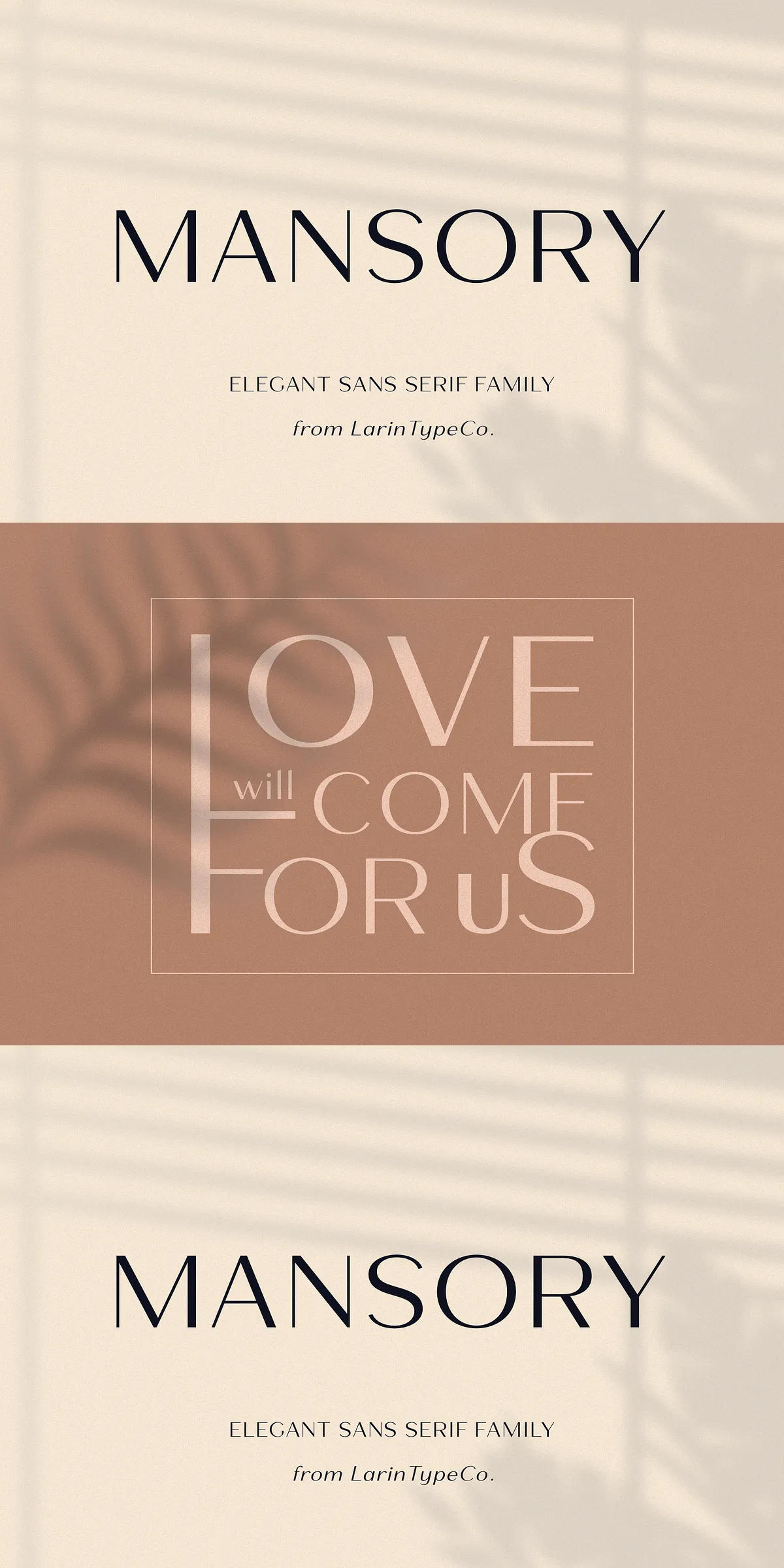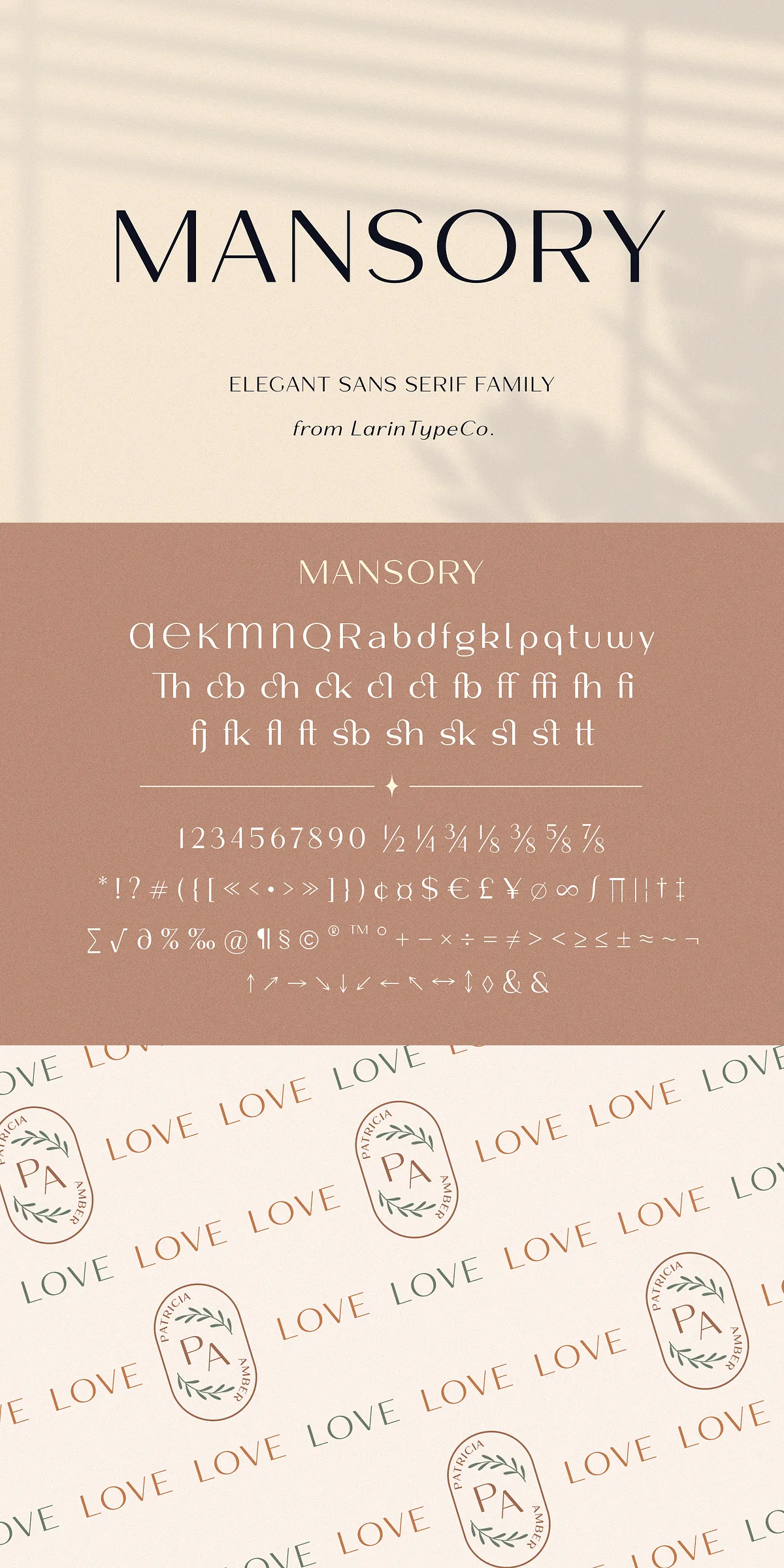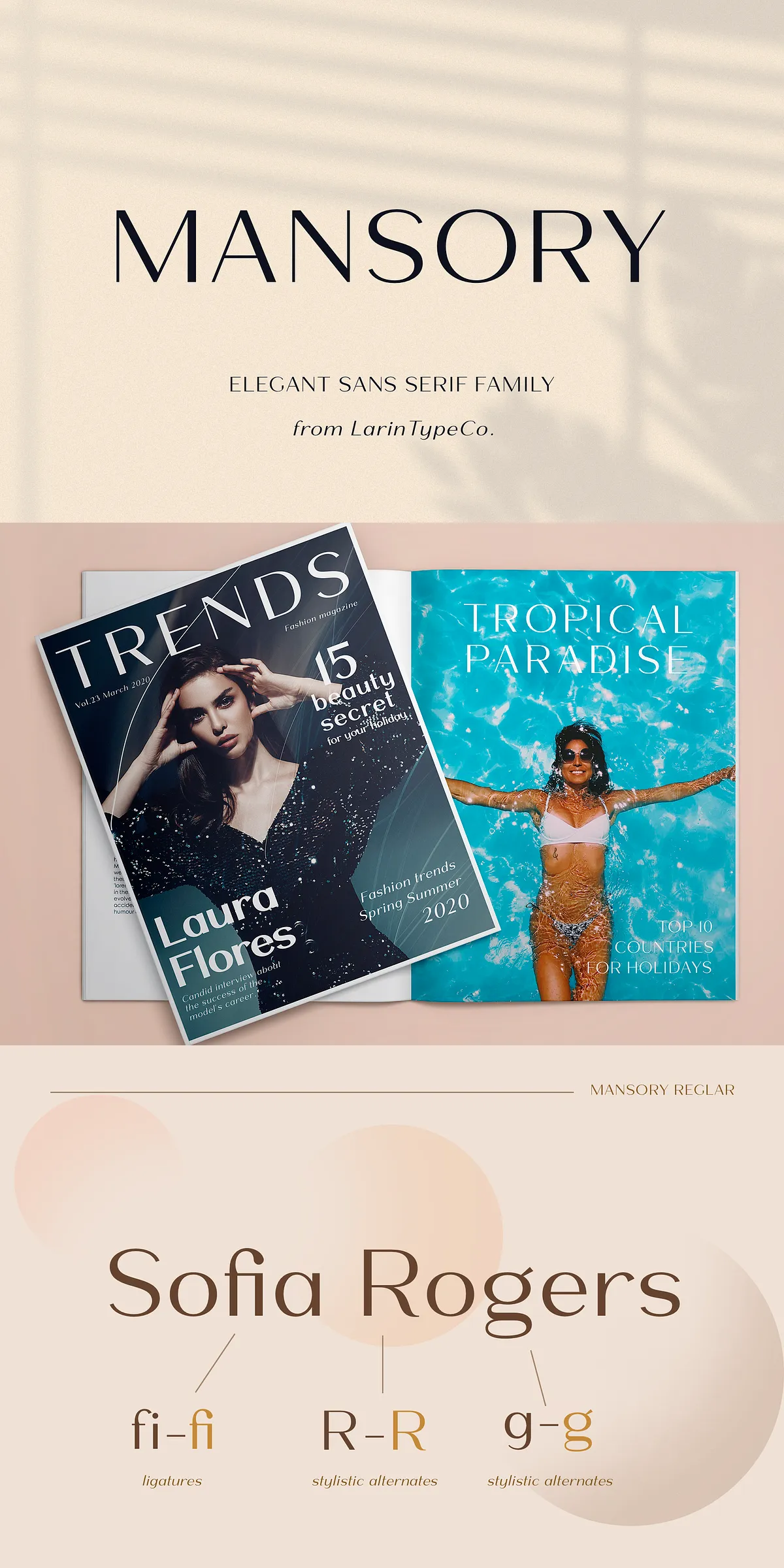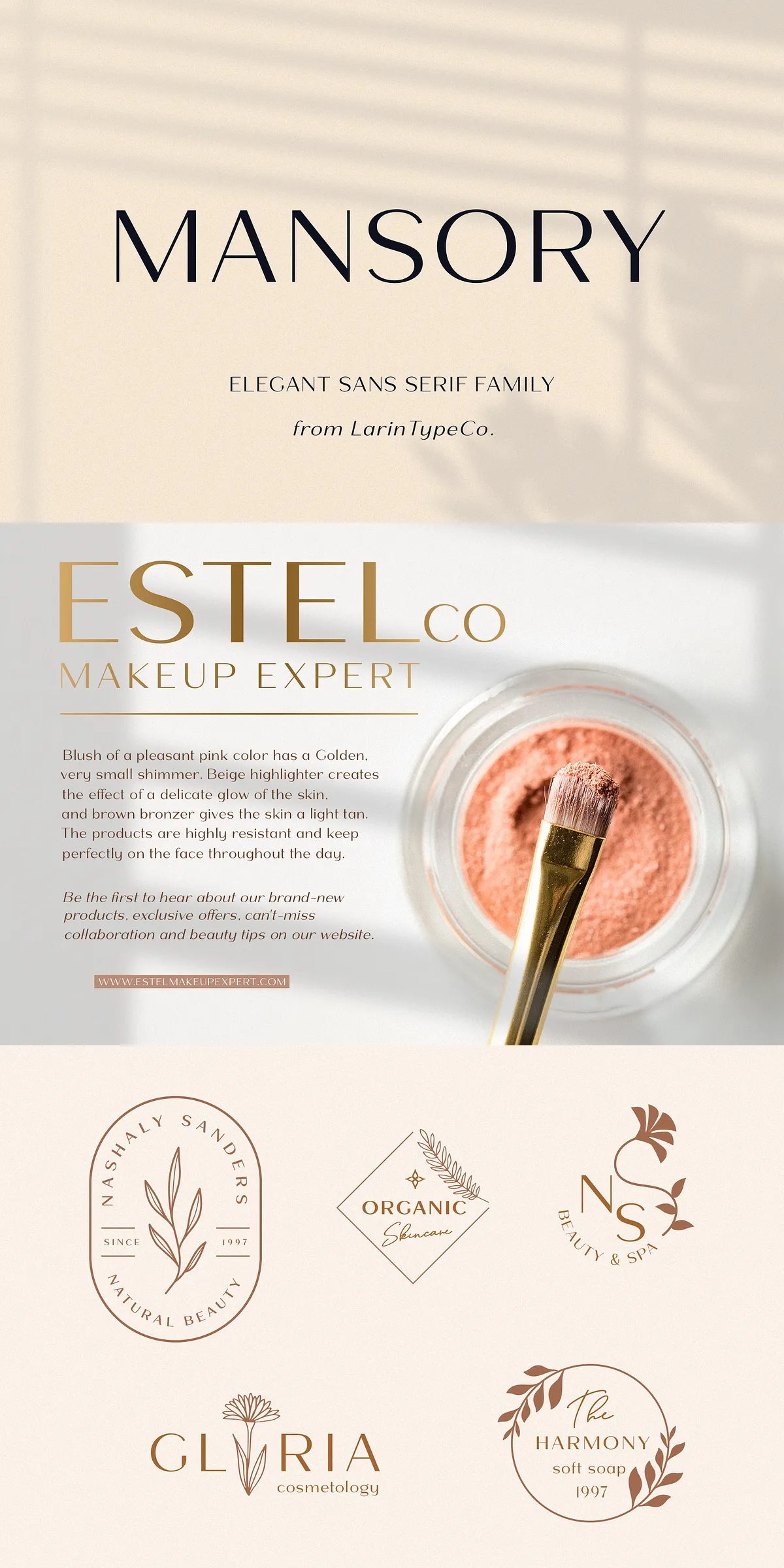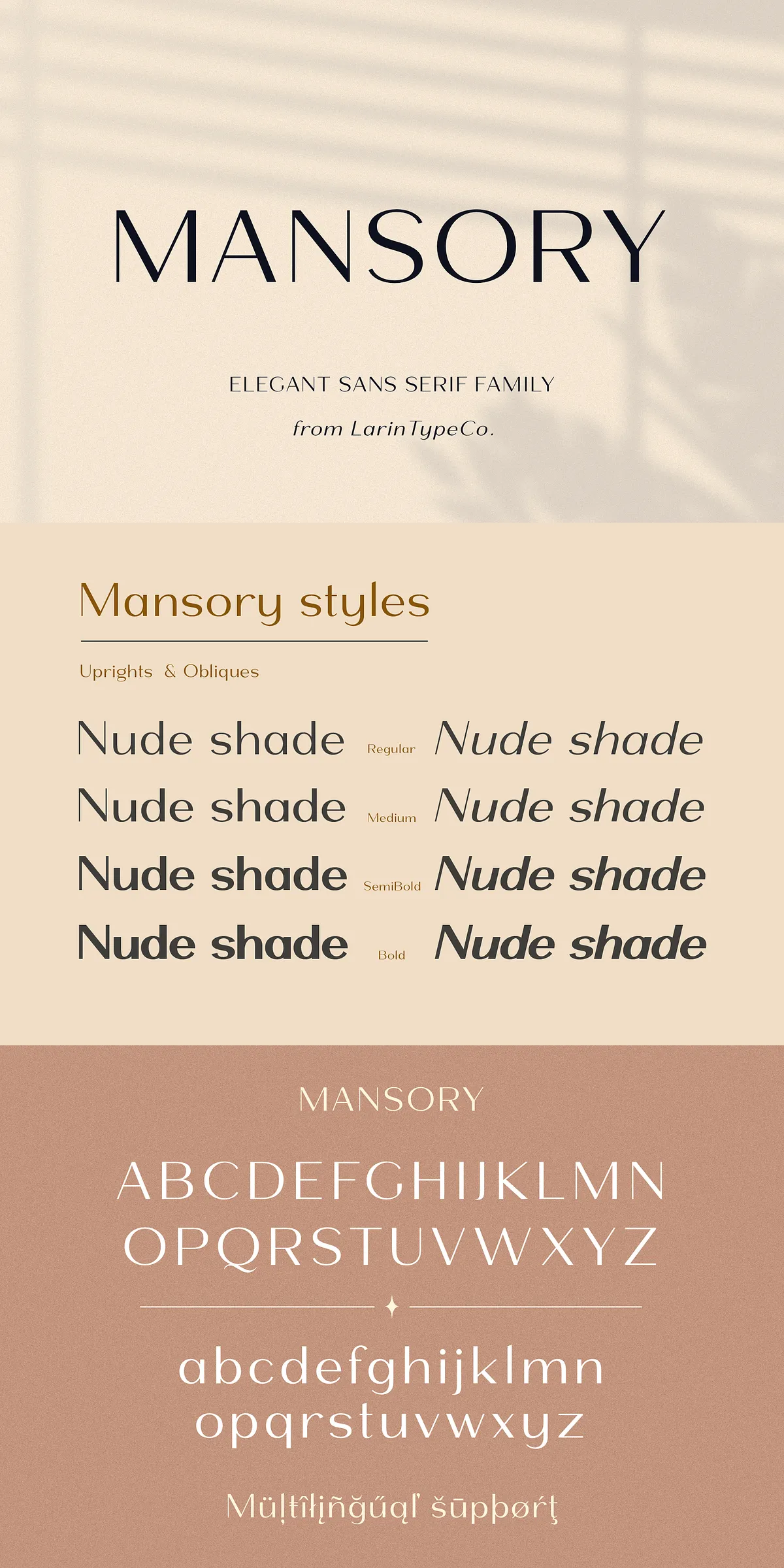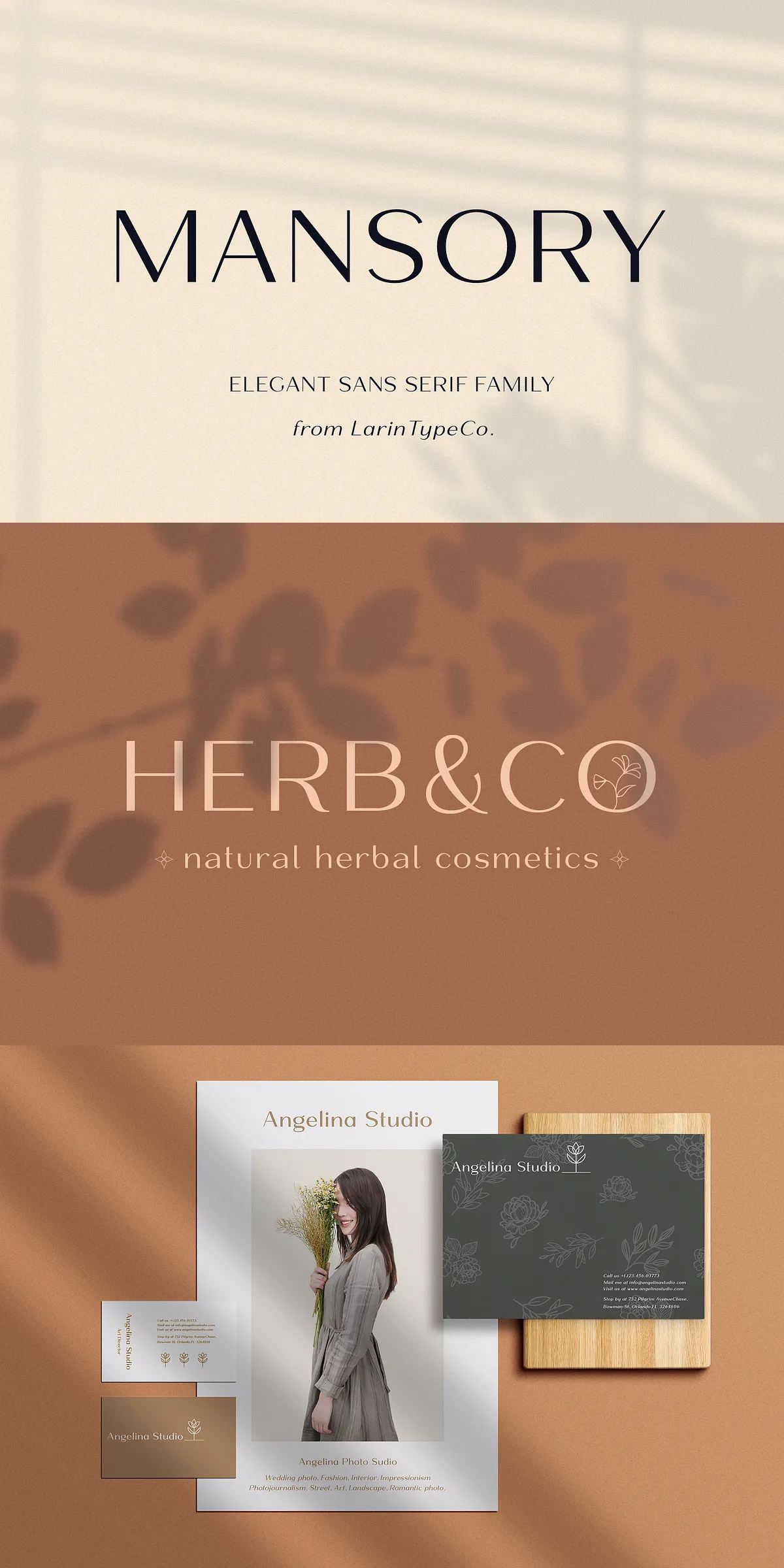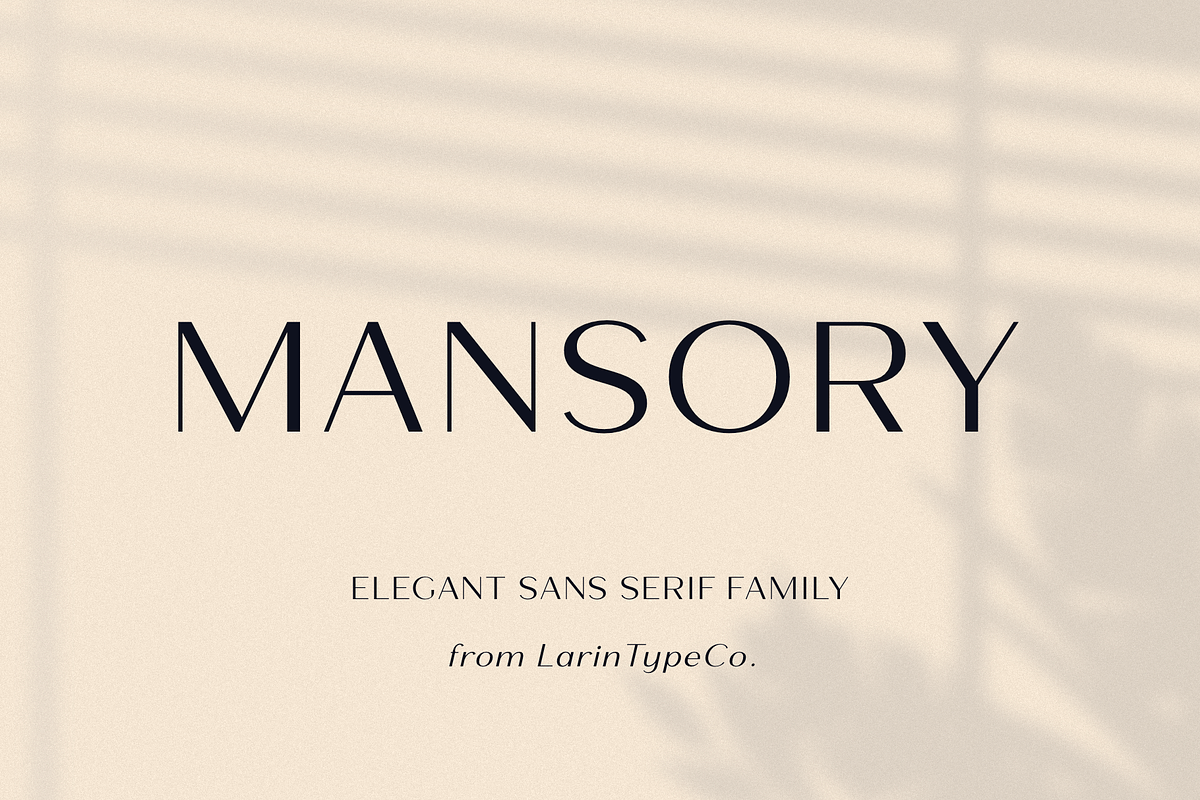
Step into the future of clean, expressive design with Mansory — a modern, contrasting, and deeply elegant sans-serif font family engineered for precision and personality. Designed for creators who demand both sophistication and flexibility, Mansory delivers striking visual impact across print, digital, and branding projects.
With four distinct weights — from light and delicate to bold and commanding — Mansory adapts to every creative need. Use the lighter weights for flowing body text, seamless readability, and understated elegance. Switch to the heavier weights for powerful headlines, impactful logos, and dramatic visual statements. Each weight maintains flawless balance, so your typography stays crisp, professional, and highly legible at any size.
Upright & Oblique: Style That Elevates Your Design
Mansory isn’t just about weight — it’s also about attitude. The family includes both **upright** and **oblique** (slanted) styles, giving you the ability to add dynamic movement, rhythm, and flow to your layouts. The oblique variants are carefully crafted to preserve the font’s harmony, allowing you to create visual hierarchy with confidence — perfect for headers, captions, and expressive text treatments.
Whether you’re working on a minimalist brochure, a high-end fashion campaign, or a bold digital interface, Mansory’s dual-style structure ensures your design feels intentional, professional, and alive with movement.
Professional Features for Advanced Design Control
Mansory goes beyond basic font sets. It’s packed with advanced OpenType features that elevate your design workflow and unlock creative freedom:
- Stylistic Alternates — Swap out standard letters for unique variations to make your text feel handcrafted and one-of-a-kind.
- Contextual Ligatures — Automatically combine letters like “fi” or “fl” for smoother, more natural reading, especially in dense text.
- Expanded Character Set — Full multilingual support including Western European, Central, and South-Eastern European languages.
- Complete Punctuation & Symbols — Fractions, currency signs, mathematical symbols, brackets, and more — all meticulously designed for consistency.
- Special Characters and Ampersand — The stylish ampersand is included for eye-catching logo treatments and text embellishments.
With support for over 300+ international characters — including accented letters like ÀÁÂÃÄÅĄÇĆÈÉÊËĘÌÍÎÏÐÑŃŁÒÓÔÕÖØÙÚÛÜŚŠŸÝŹŻŽß — Mansory is built to work globally, whether you’re designing for German, French, Polish, or Scandinavian markets.
Full Language & Symbol Coverage
Mansory’s character set includes:
- Uppercase and lowercase A-Z (full alphabet)
- Numbers, fractions, and special symbols
- Full punctuation, brackets, and mathematical operators
- Extensive multilingual glyphs: ÀÁÂÃÄÅĄÇĆÈÉÊËĘÌÍÎÏÐÑŃŁÒÓÔÕÖØÙÚÛÜŚŠŸÝŹŻŽß
No matter where your projects take you, Mansory has the language support to keep your design professional and consistent.
No matter if you’re building a website, designing a logo, creating a poster, or crafting a brand identity, Mansory works seamlessly across digital and print media — with no compromises.
Perfect for: Designers Who Demand Excellence
Mansory isn’t just a font — it’s a powerful design partner. It’s ideal for:
- Brand Identity & Logo Design — Make your mark with bold, modern, memorable typography.
- Editorial & Publishing Layouts — Use light and regular weights for clean, readable layouts.
- Website Interfaces & Web Design — Leverage WOFF and WOFF2 formats for fast, seamless performance.
- Print & Packaging Design — Deliver elegance in brochures, packaging, and product labels.
- Advertising & Marketing Campaigns — Stand out with contrasting lines and dynamic styles.
Every project you touch with Mansory gains a refined, modern edge — professional, readable, and deeply expressive.